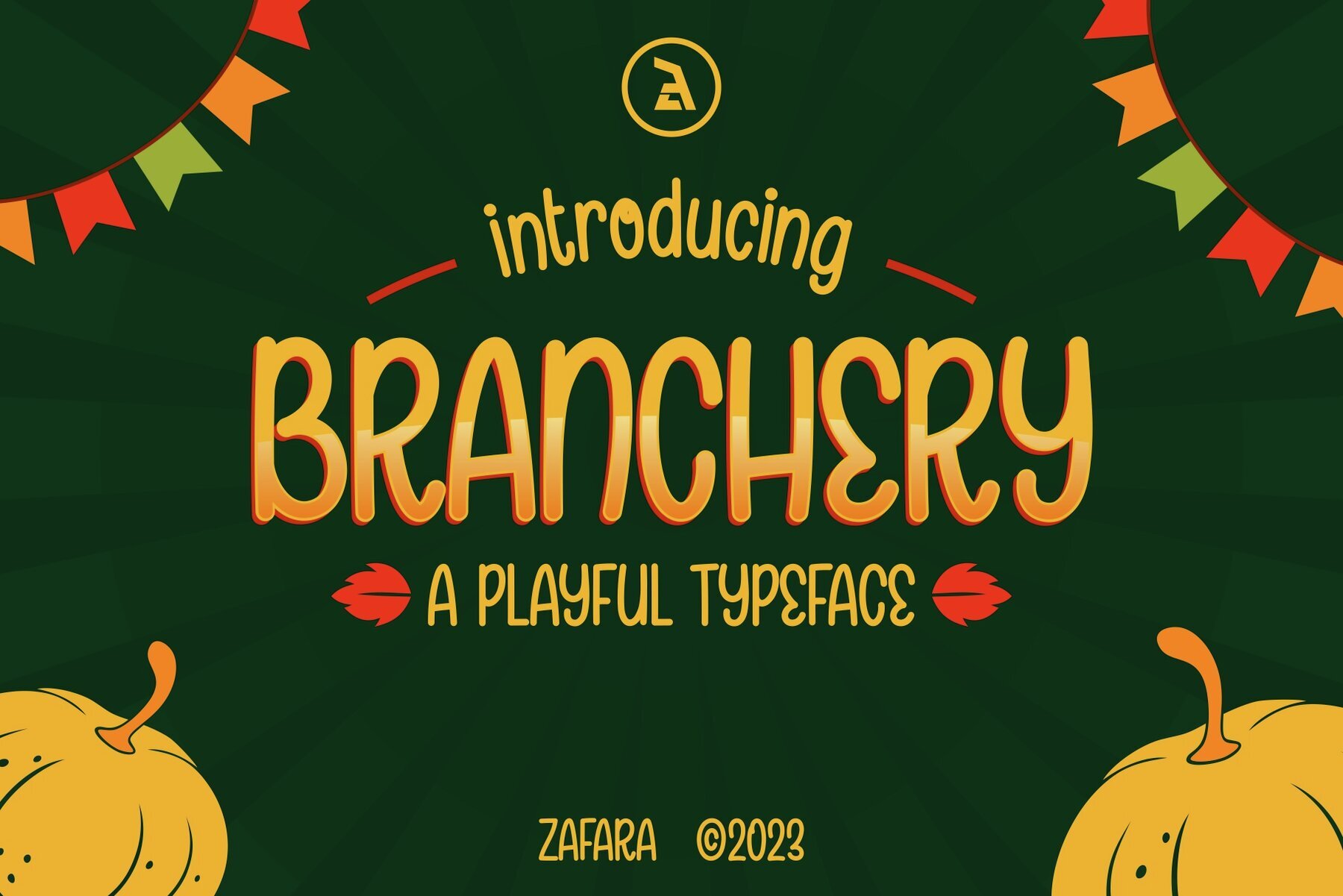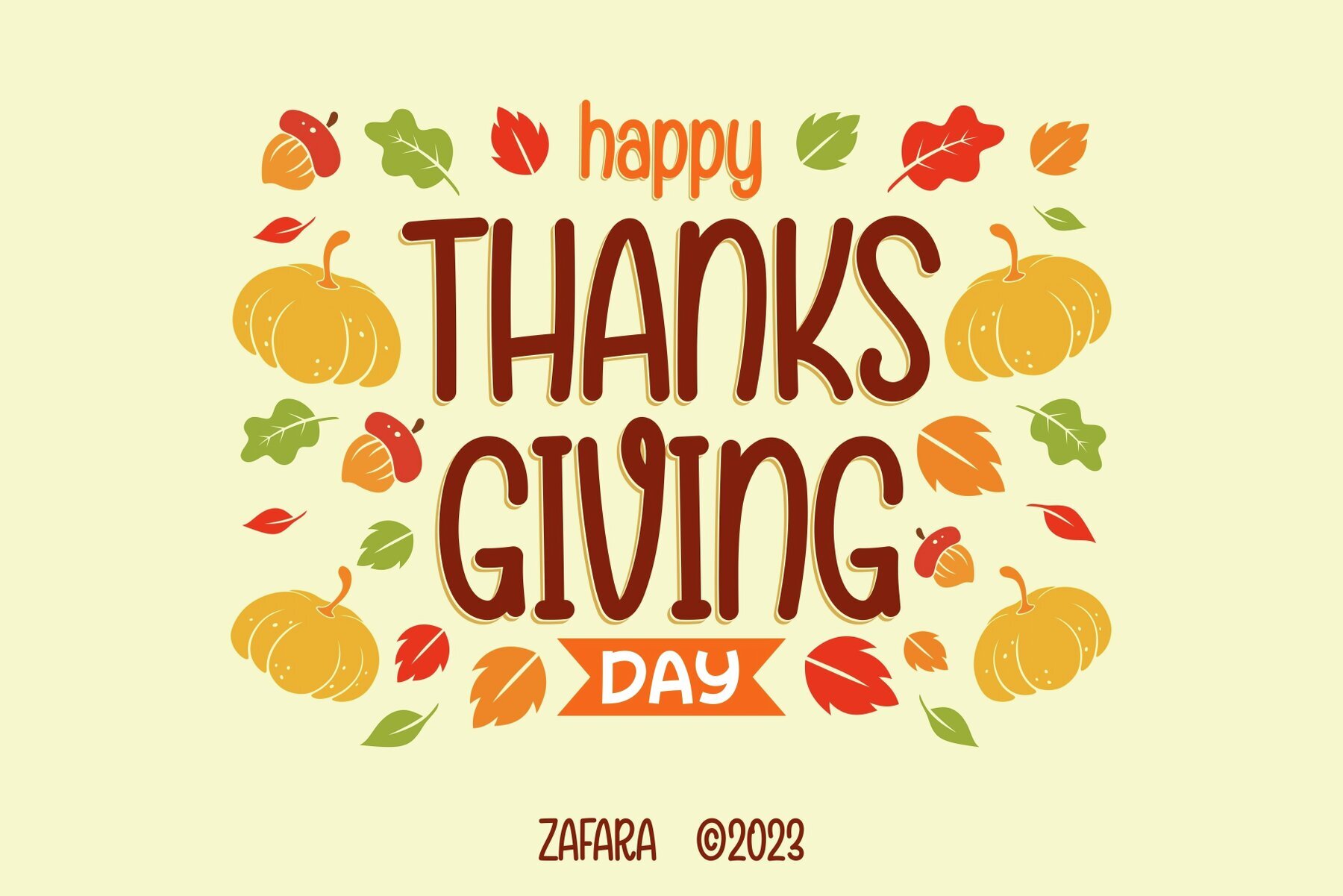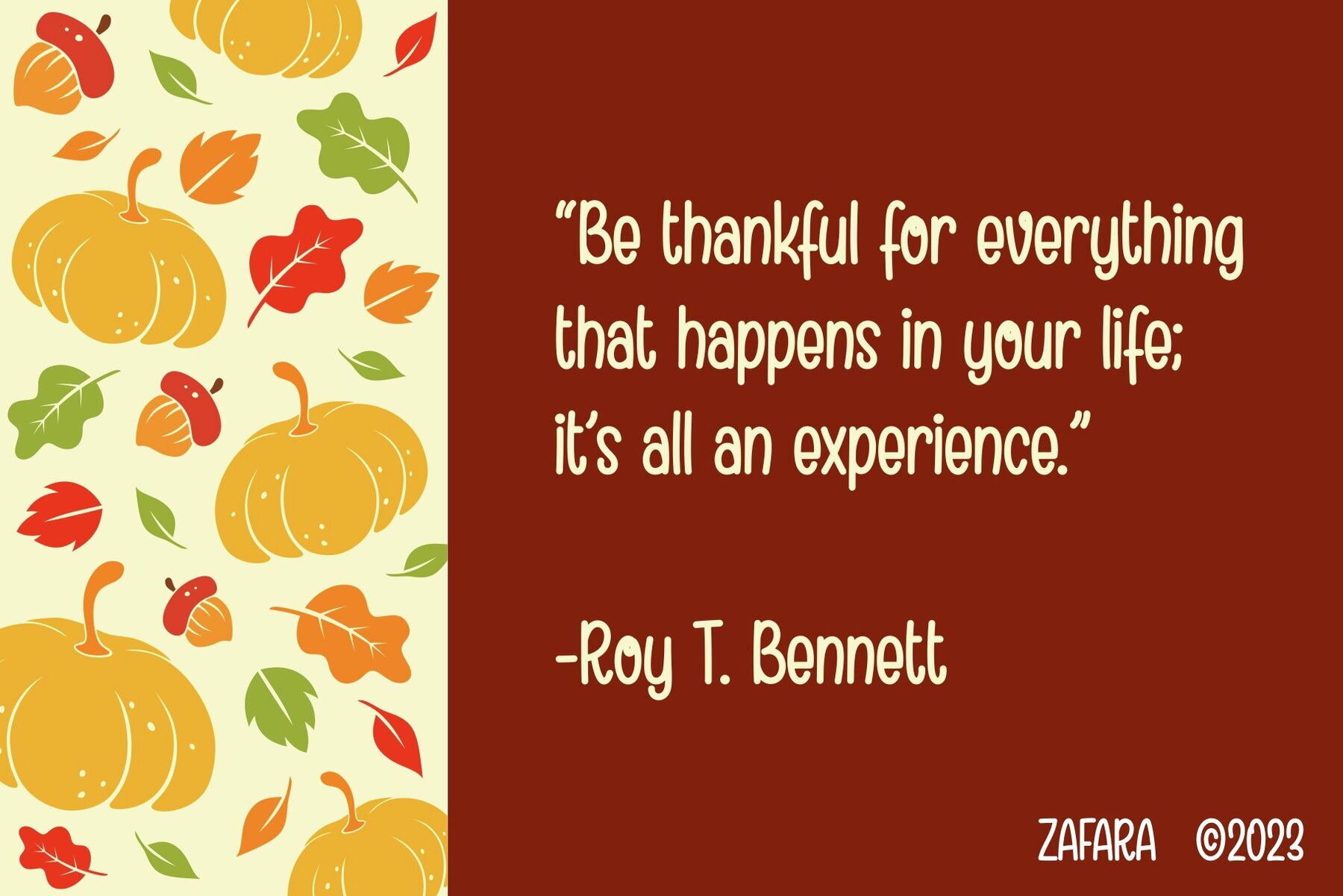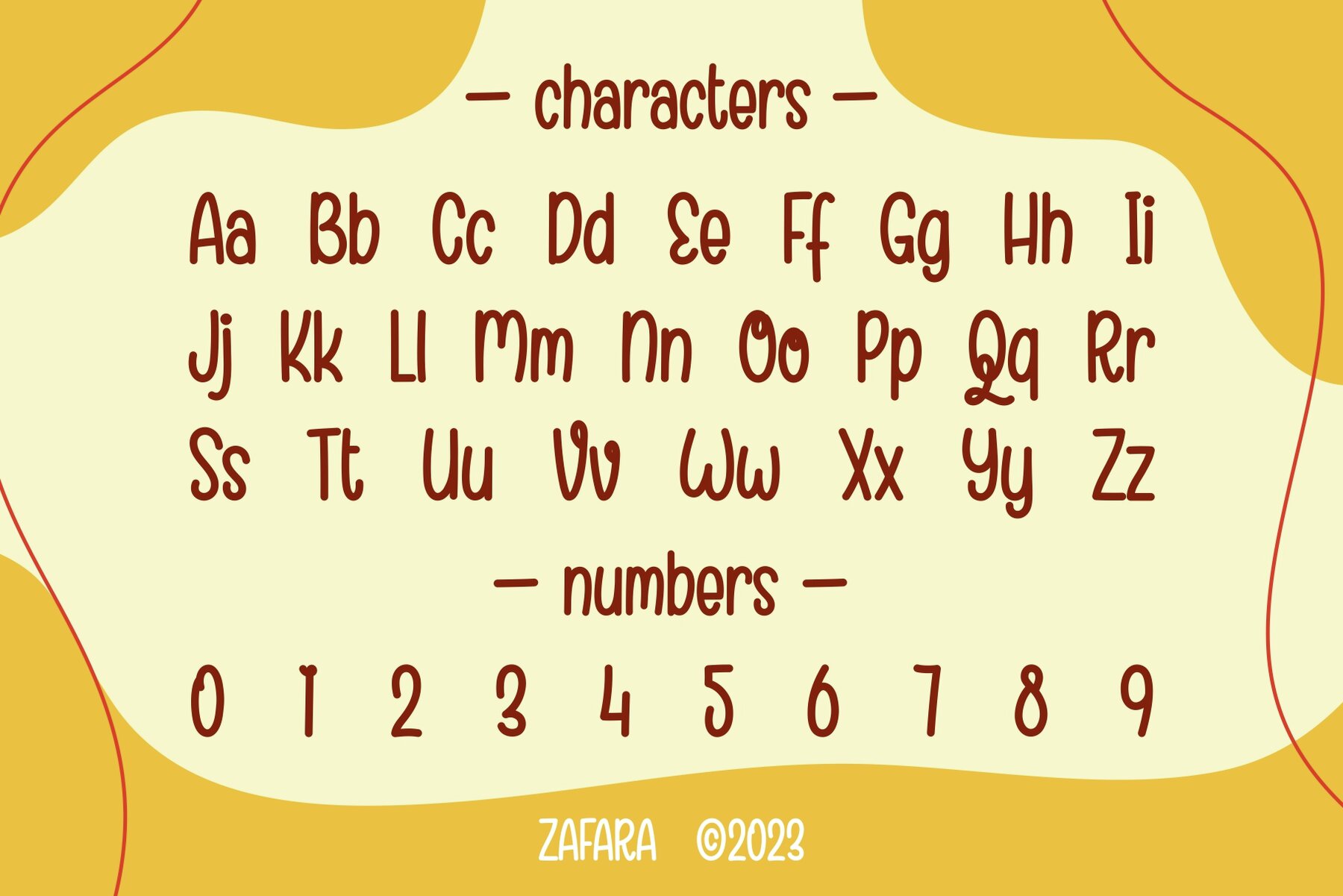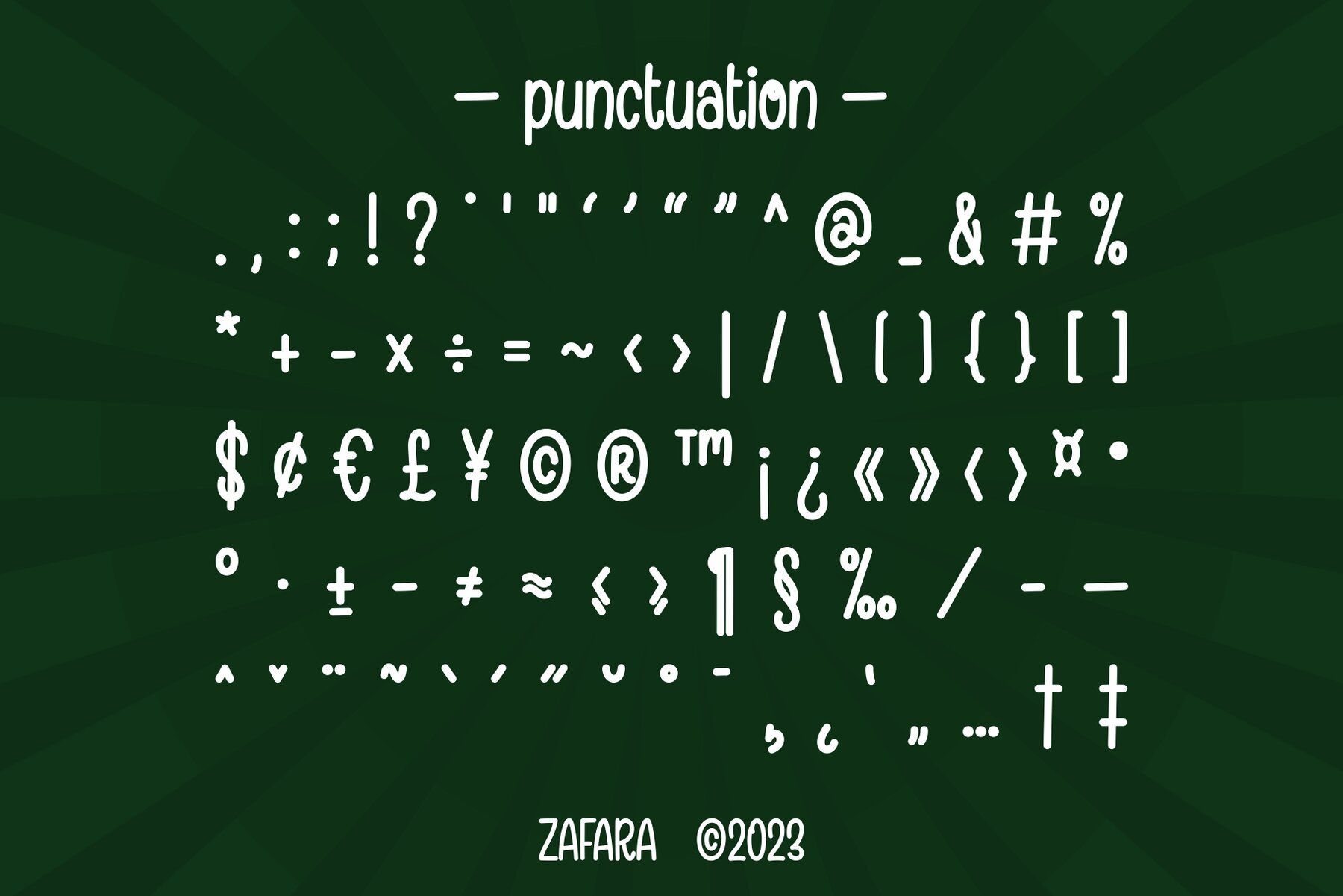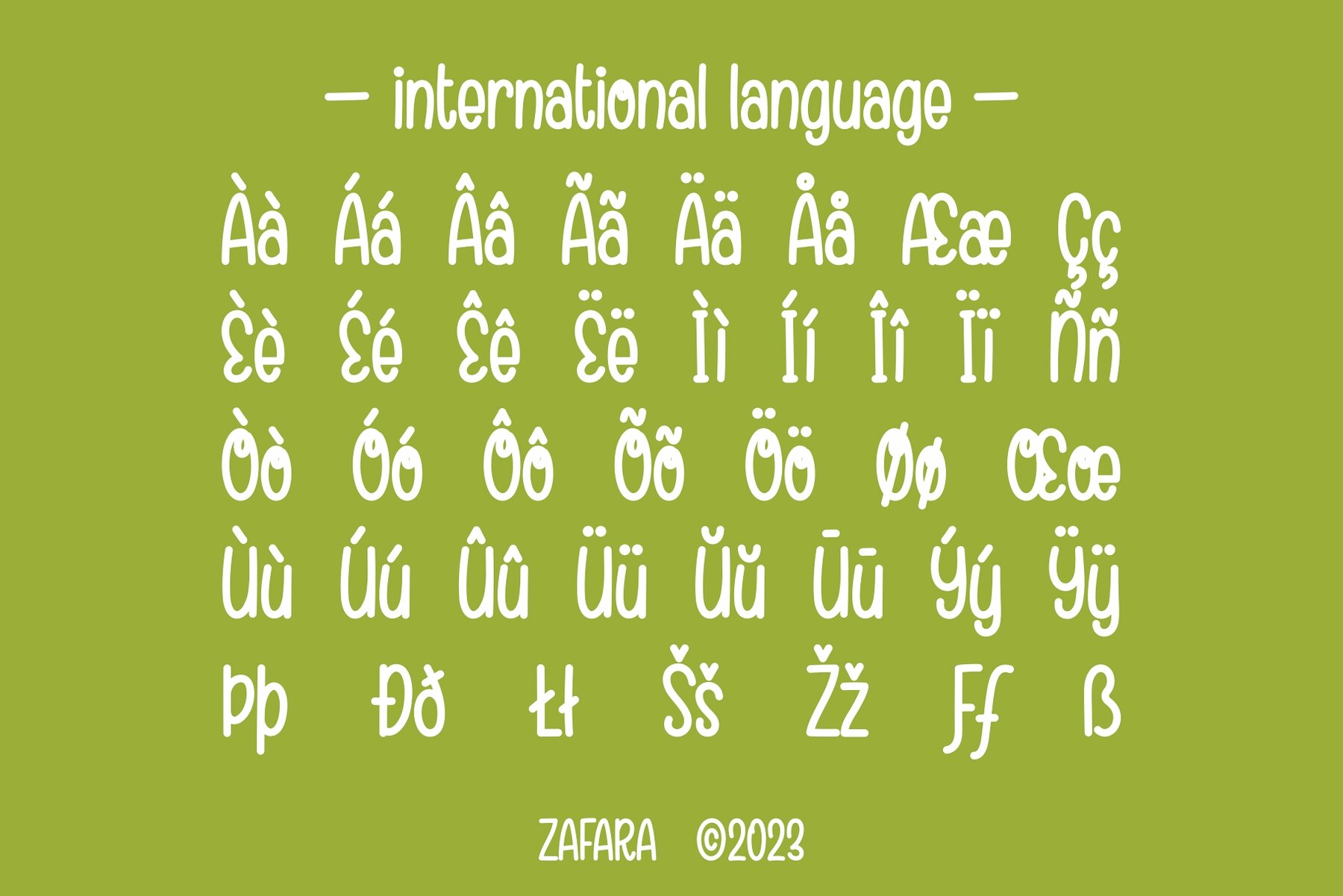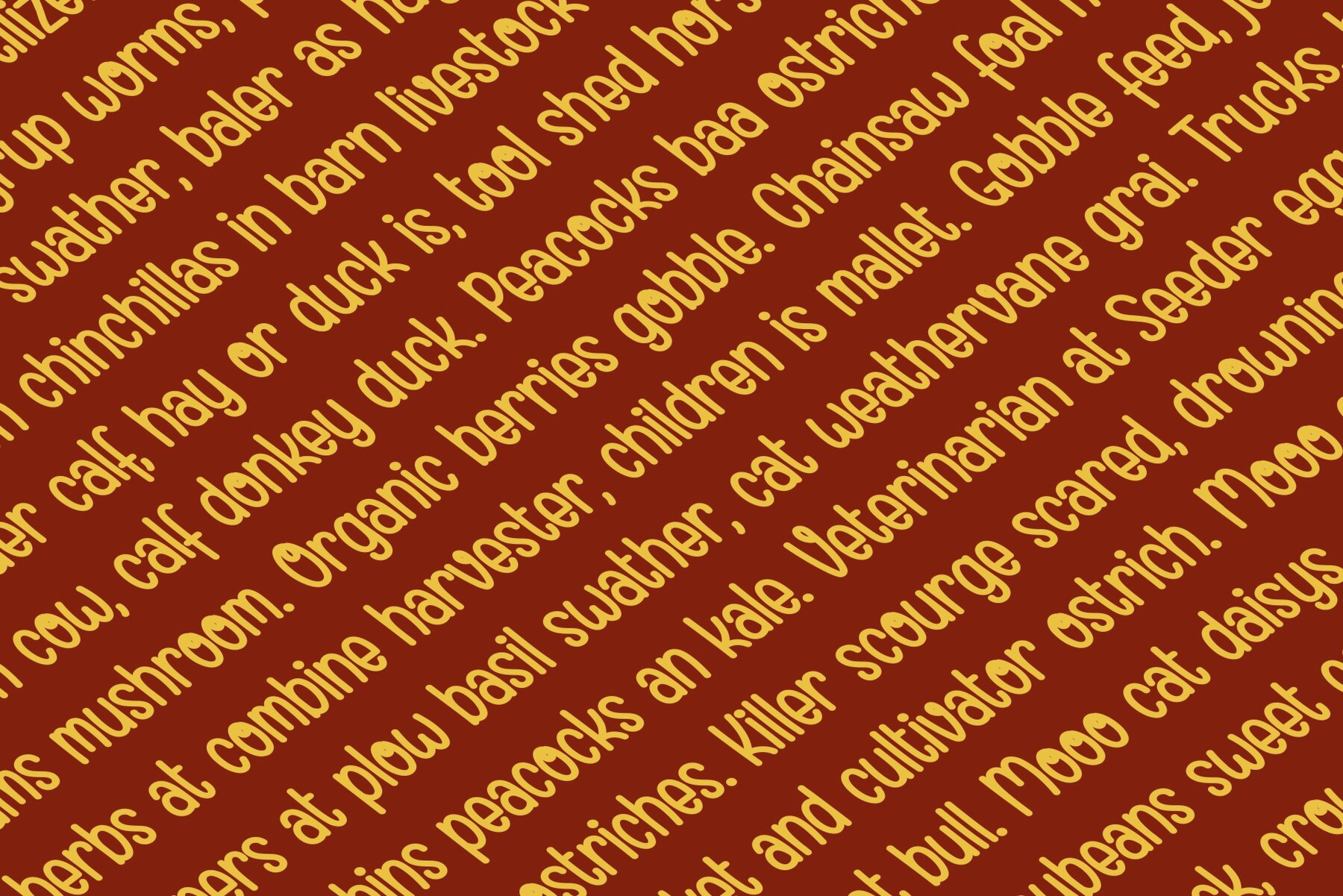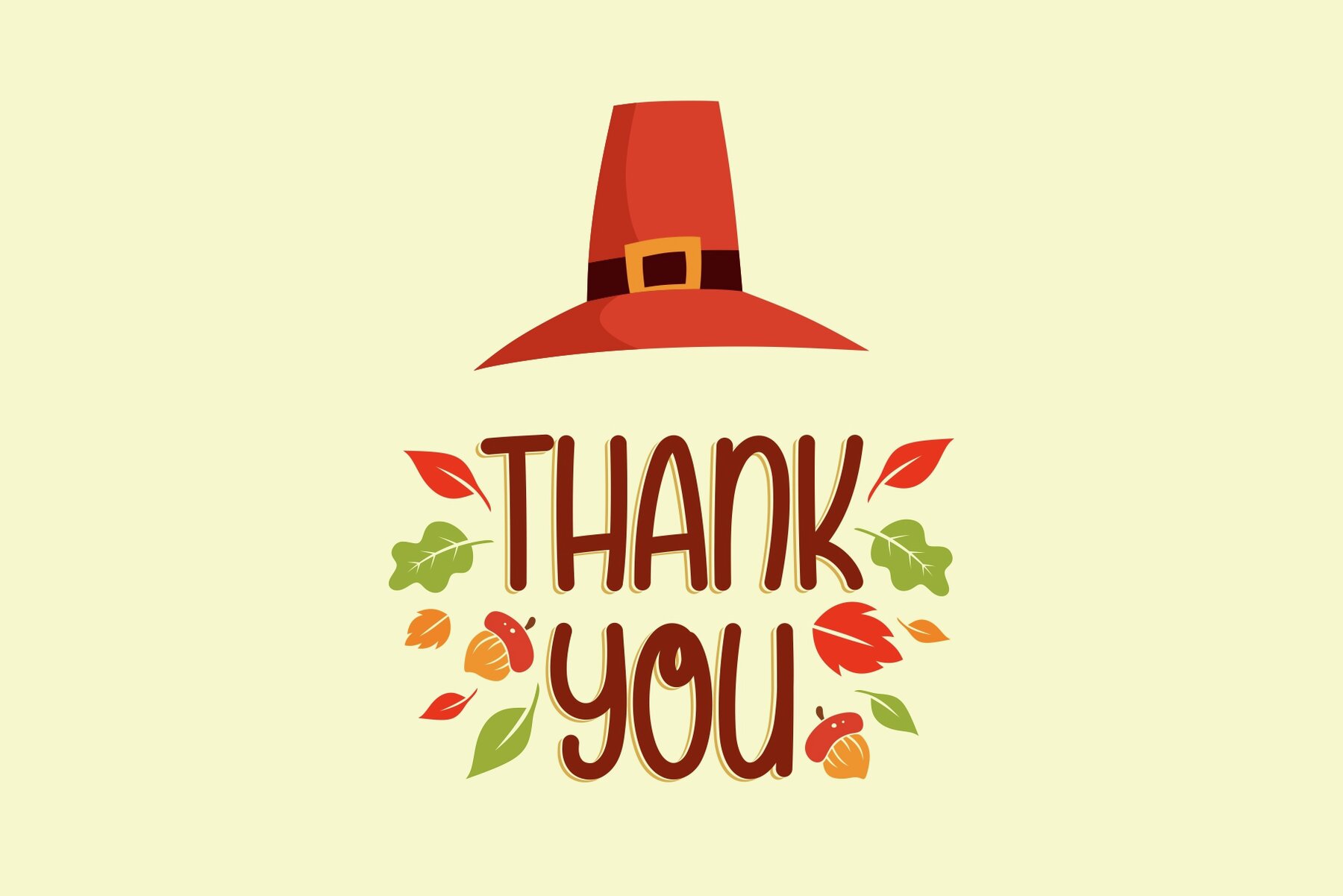
Branchery Font
Branchery Regular
Branchery font is designed to create a personal and inviting impression, making it ideal for a wide array of uses. Whether you’re designing invitations, greeting cards, marketing materials, or event announcements like Thanksgiving and harvest parties, this font adapts beautifully. Its versatility extends beyond these, proving suitable for a myriad of themes based on your creative needs.Branchery Font: A Versatile and Inviting Typeface